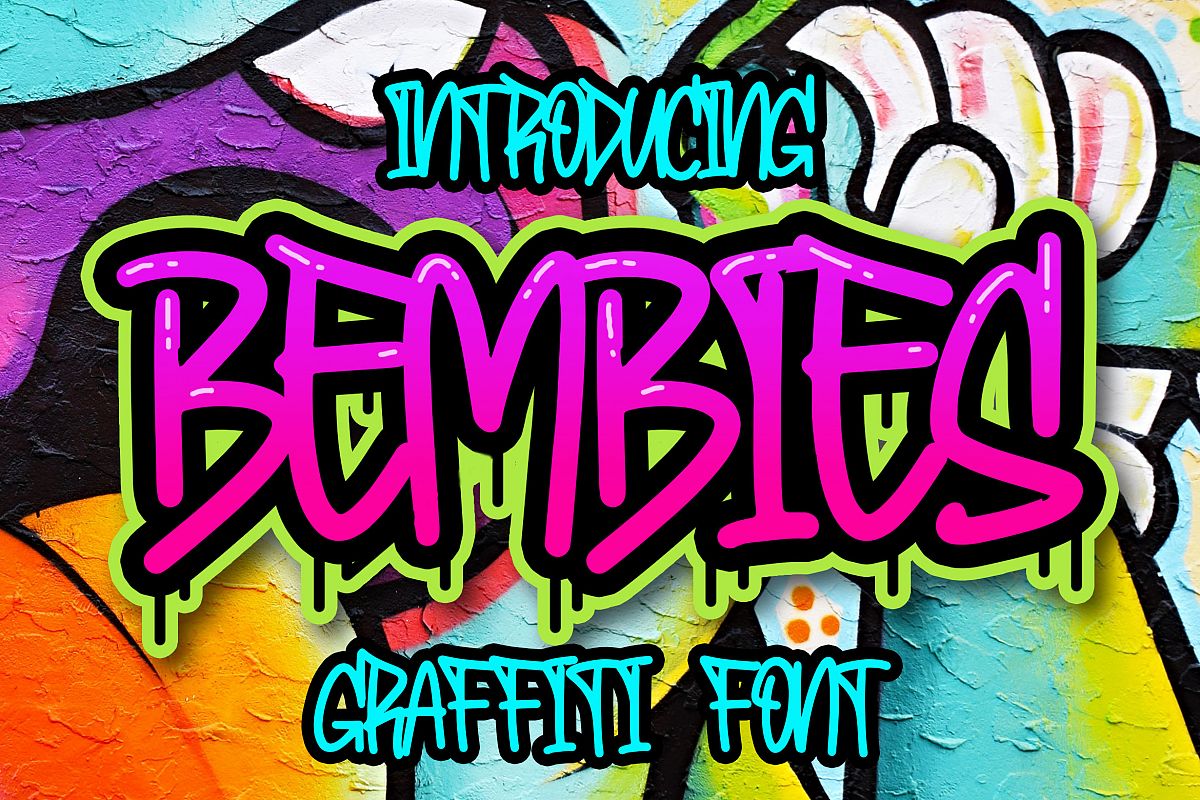
Introducing of our new product the name is Bembies Graffiti Font. Bembies inspired by graffiti style with a fun theme very good for graffity poster, Hip Hop music, kids poster, flyer, childrenbook, cartoon, comic etc
**MULTILINGUAL ACCENT :**
ŽžŠŒšŸÀÁÂÃÄÅÆÇÈÉÊËÌÍÎÏÐÑÒÓÔÕÖØÙÚÛÜÝßàáâãäåæçèéêëìíîïñòóôõöøùúûüýÿ